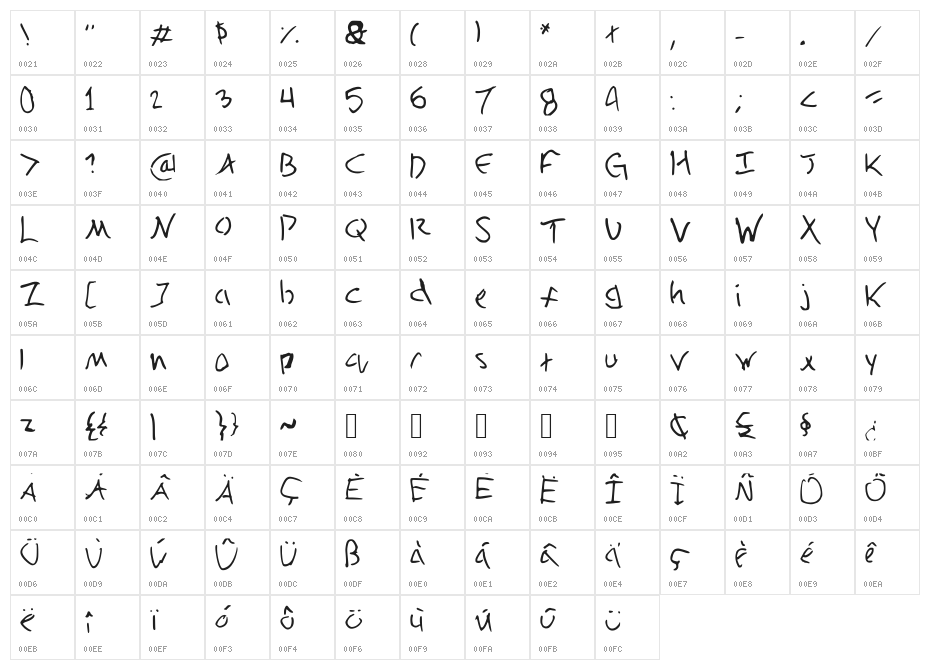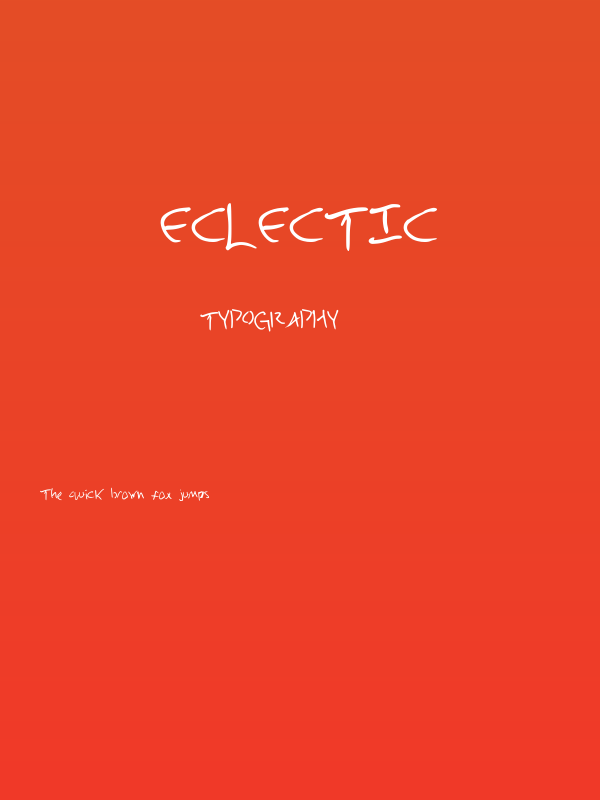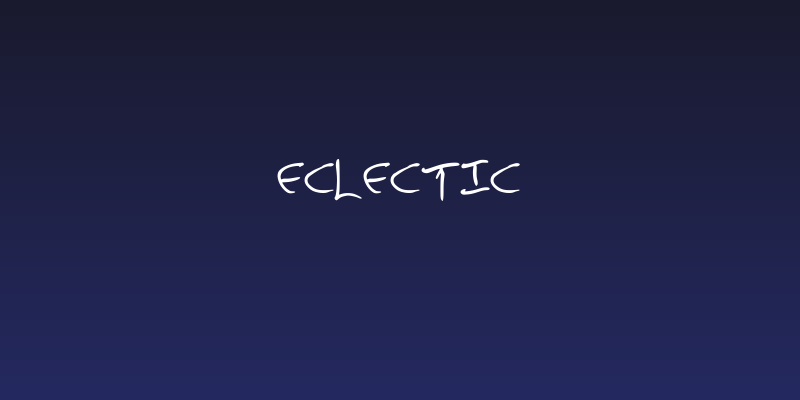
Eclectic Font
| Stile generale | Eclectic, Artistic |
| Caso d'uso | Headlines, Artistic projects, Branding |
| Progetti proposti | Ideal for creative projects such as posters, album covers, and artistic branding. |